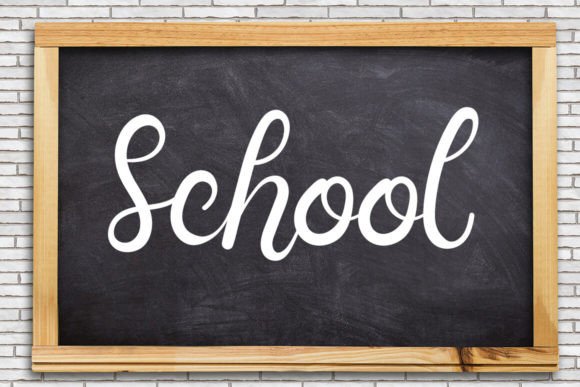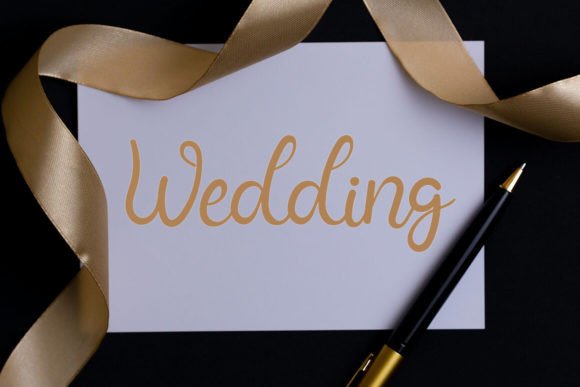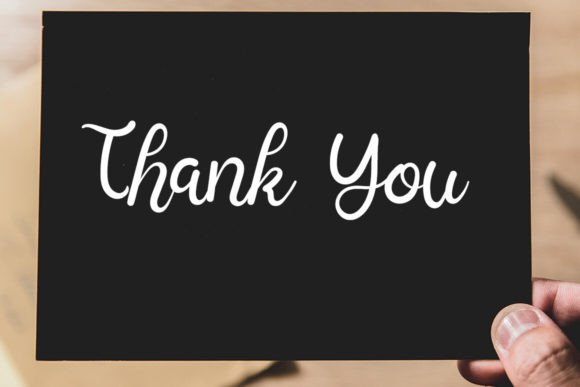
Unveiling the Elegance of Blacky Font: A Harmonious Blend of Sophistication and Sweetness
In the realm of typography, few fonts manage to strike a balance between elegance and playfulness. However, Blacky Font emerges as a beacon of hope for designers and crafters seeking a typeface that exudes both sophistication and charm. This exquisite font is meticulously crafted to bring a touch of refined beauty to a wide array of projects, making it an indispensable tool in the arsenal of creative professionals.
The Essence of Blacky Font
Emanating elegance and freshness, Blacky Font is a harmonious blend of sophistication and sweetness. Its clean, beautiful lines are designed to effortlessly infuse delightful joy into your creative endeavors. Whether you’re working on a formal corporate project or an informal creative venture, this font gracefully enhances any design it adorns. The versatility of Blacky Font makes it suitable for an extensive array of projects, ensuring that your designs stand out with a touch of class and elegance.
A Testament to Simplified Beauty
Blacky Font stands as a testament to the power of simplified beauty. In an era where complexity often overshadows simplicity, this font proves that sometimes, less is more. Equipped to amplify the allure of your business and make it undeniably captivating, Blacky Font is the perfect choice for designers looking to make a statement. Every character in this font tells a story of allure and charm, turning your designs into masterpieces that capture the imagination of your audience.
Elevating Your Designs
With Blacky Font, the possibilities are endless. This versatile typeface can be used in a multitude of design projects, including but not limited to:
- Branding and Logos: Create a lasting impression with a logo that embodies elegance and sophistication.
- Marketing Materials: Elevate your brochures, flyers, and posters with a font that captures attention and conveys your message with clarity.
- Web Design: Enhance the user experience with a clean and readable font that ensures your website stands out.
- Packaging: Make your product packaging shine with a font that combines beauty and functionality.
- Social Media Graphics: Engage your audience with social media graphics that reflect your brand’s personality and style.
Why Choose Blacky Font?
Choosing Blacky Font for your design projects comes with numerous benefits:
- Versatility: Suitable for both formal and informal projects, offering flexibility in your design choices.
- Elegance: Adds a touch of sophistication to your designs, making them more appealing to your audience.
- Readability: Ensures that your message is conveyed clearly, making it easy for your audience to engage with your content.
- Uniqueness: Stands out in a crowded market, helping your brand to leave a lasting impression.
Blacky Font is more than just a typeface; it’s a design companion that brings elegance, freshness, and charm to your creative projects. With its clean lines, beautiful aesthetic, and versatile nature, it’s poised to become a favorite among designers and crafters. Whether you’re looking to elevate your brand, enhance your website, or simply add a touch of sophistication to your designs, Blacky Font is the perfect choice. Embrace the power of simplified beauty and let Blacky Font guide you in creating designs that are not only visually stunning but also tell a story of allure and charm.
In the world of design, where first impressions matter, Blacky Font offers a unique opportunity to make a lasting impact. So, why settle for ordinary when you can create something extraordinary with Blacky Font? Dive into the world of elegant typography and discover how this beautiful font can transform your designs into masterpieces.